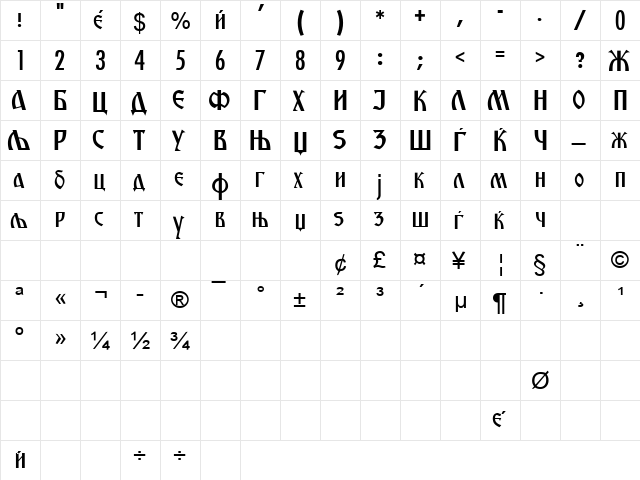
Macedonian Ancient Normal
Macedonian Ancient is a composed and adaptable typeface that performs quietly and consistently across a wide range of design contexts.